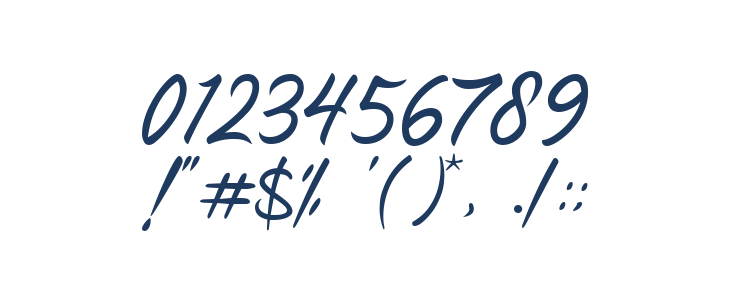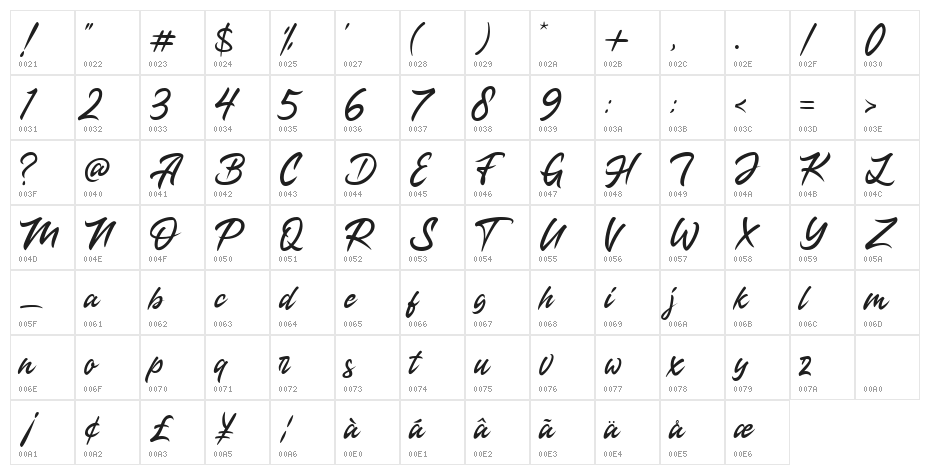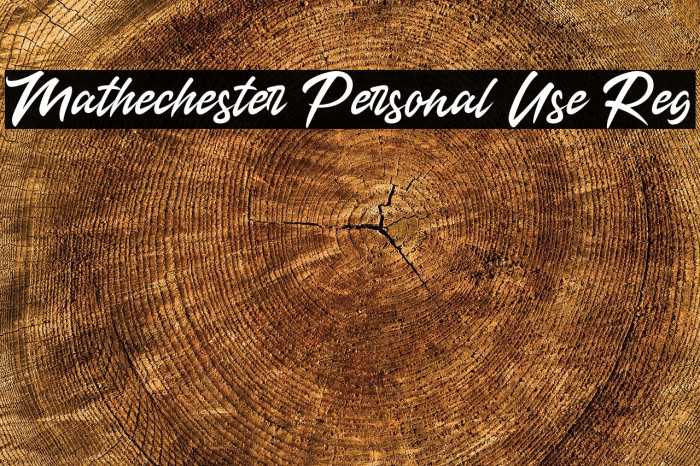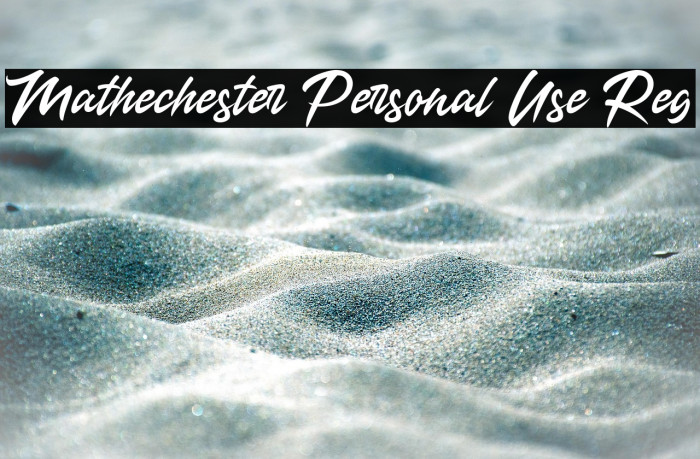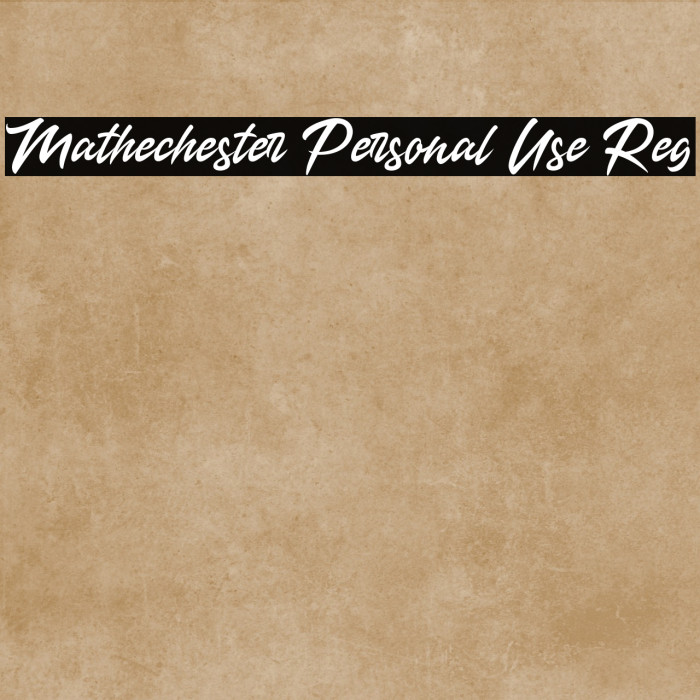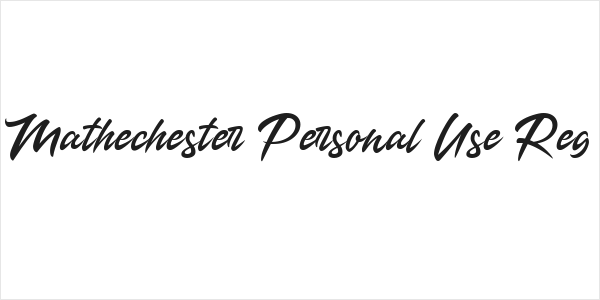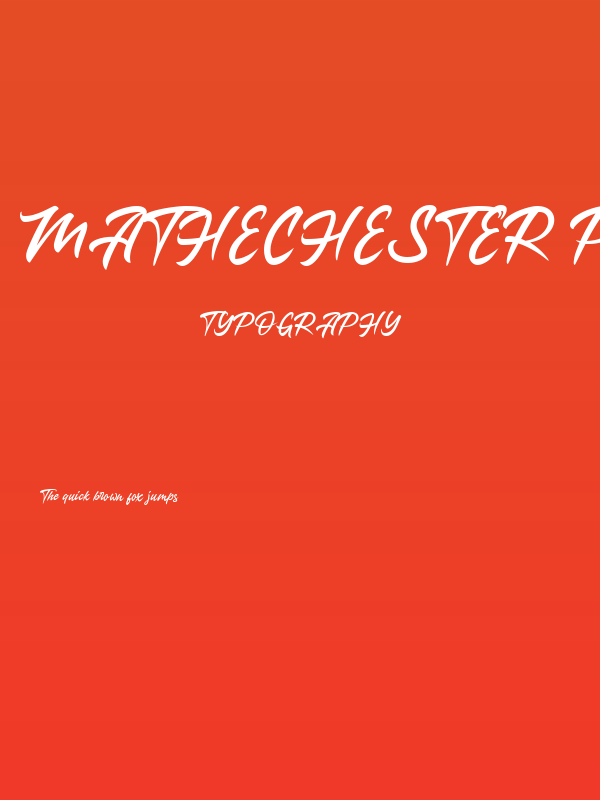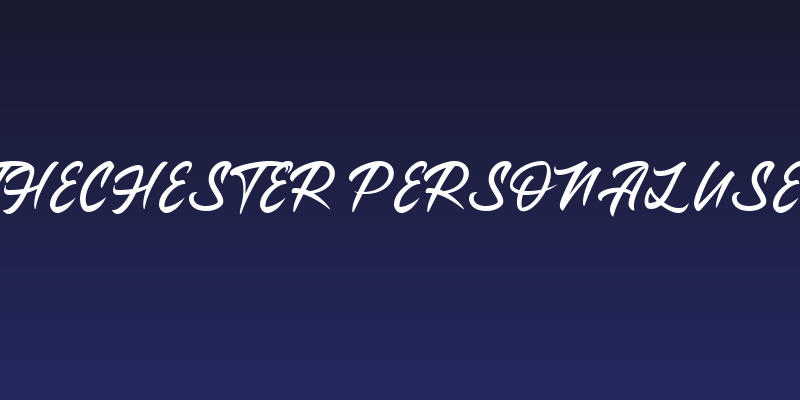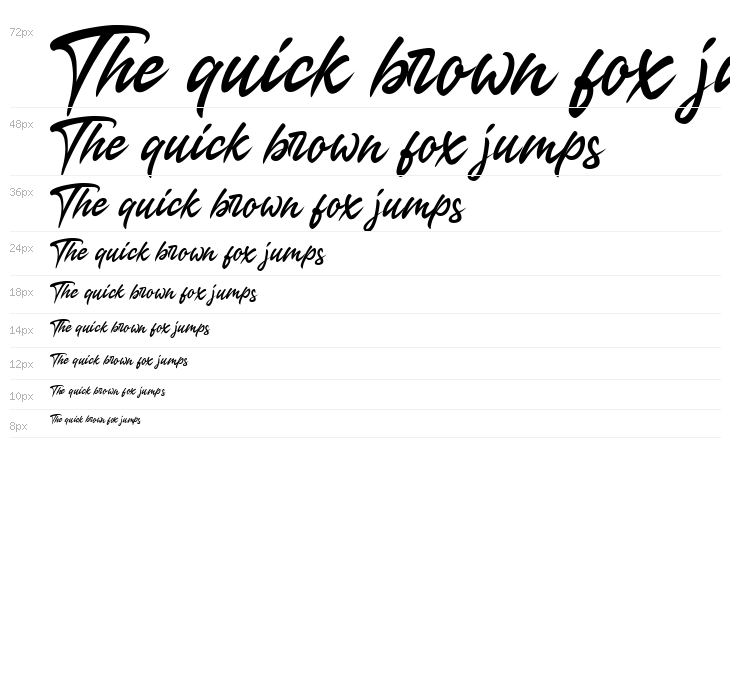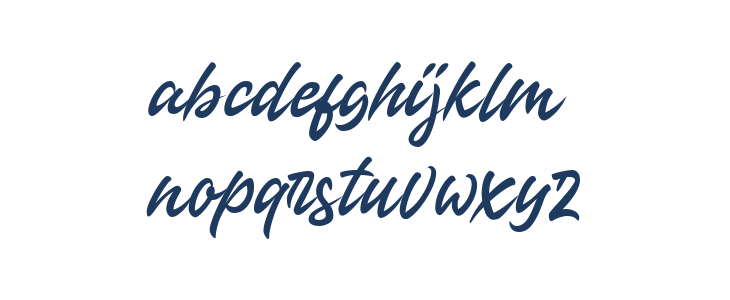
Mathechester Personal Use Reg Font
Mathechester Personal Use Reg Description
This font exhibits a dynamic and flowing script style, characterized by its elegant and cursive letterforms. The uppercase letters are bold and sweeping, with a distinct slant that adds a sense of motion and fluidity. The lowercase letters maintain a consistent style, featuring smooth curves and connected strokes that enhance the handwritten appearance. The numerals are equally expressive, with a slight slant and rounded edges that complement the overall aesthetic. Special characters are designed to match the script's fluidity, ensuring a cohesive look across all glyphs. This font's artistic flair makes it suitable for creative and expressive design projects.